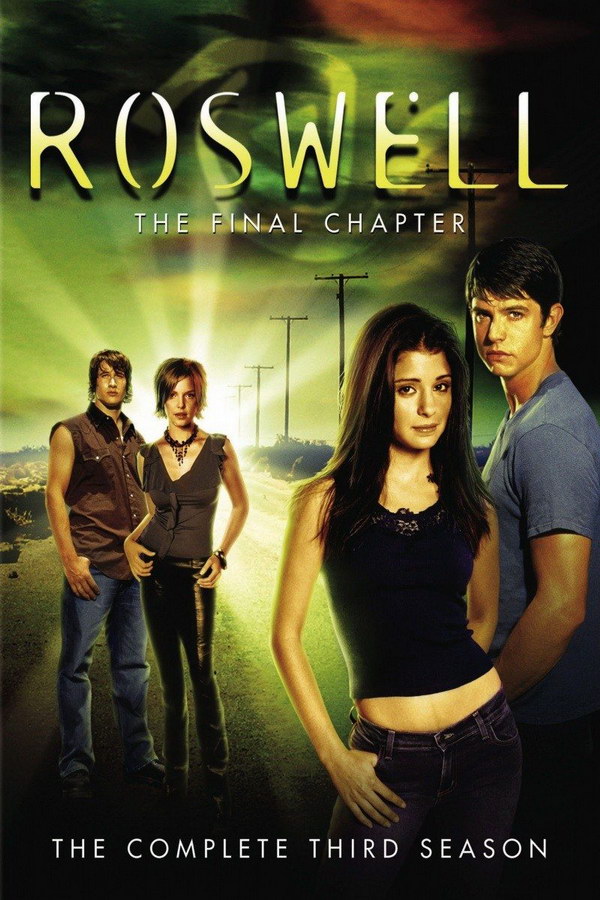
Roswell Font
Fonts in UseRoswell is a science fiction television series that follows the lives of three alien-human hybrid teenagers and their friends in Roswell, New Mexico, as they navigate the challenges of adolescence. The show originally aired from 1999 to 2002.